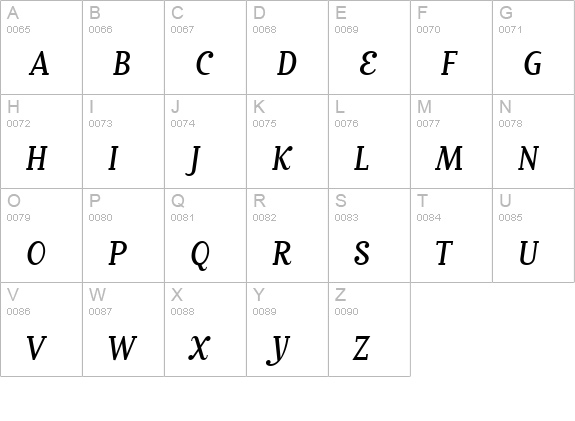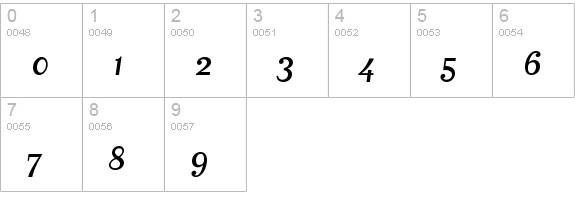
MatrixScriptRegularOldstyle Regular Font Details
MatrixScriptRegularOldstyle Regular is the standard, neutral variant in the MatrixScriptRegularOldstyle typeface family \xE2\x80\x94 well suited to general body text, paragraphs, and standard typographic work.
MatrixScriptRegularOldstyle Regular font is a classic and timeless typeface that exudes elegance and sophistication. Its clean lines and traditional design make it perfect for a wide range of projects, from formal documents to creative designs. The regular weight of this font strikes the perfect balance between readability and style, making it a versatile choice for any application. What sets MatrixScriptRegularOldstyle apart is its timeless appeal and versatility. Whether used for body text or headlines, this font maintains a sense of classic sophistication that is sure to elevate any design project. Its clear letterforms and balanced spacing ensure excellent legibility at any size, making it a reliable choice for both print and digital applications. And the best part? MatrixScriptRegularOldstyle Regular font is available for free download at FontsMarket.com. This means you can easily access this high-quality typeface without breaking the bank. Don't miss out on the opportunity to enhance your designs with this elegant and versatile font - download MatrixScriptRegularOldstyle Regular today!